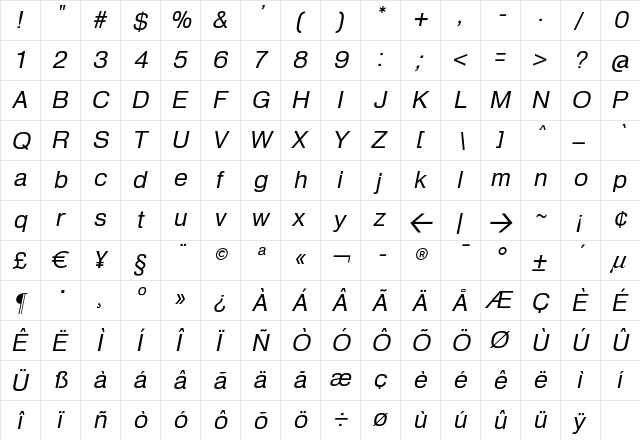
HeldustryFT Regular
Design Context for HeldustryFT Typeface
HeldustryFT offers clean, dependable letterforms without strong stylistic allegiance, making it a practical choice for designers who need flexibility.